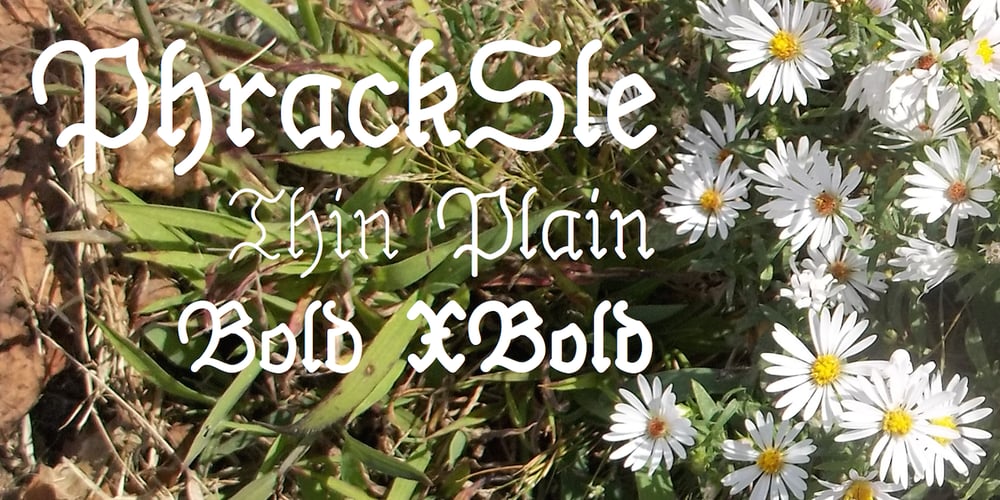
PhrackSle
PhrackSle font
PhrackSle Font Family was designed by Robert Schenk and published by Ingrimayne Type. PhrackSle contains 4 styles and family package options. PhrackSle is a a Fraktur face with a difference: it has a uniform stroke rather than a calligraphic-pen stroke. It comes in four weights: thin, plain, bold, and extrabold. (For a version of the design done with a calligraphic stroke, see PhederFrack.)